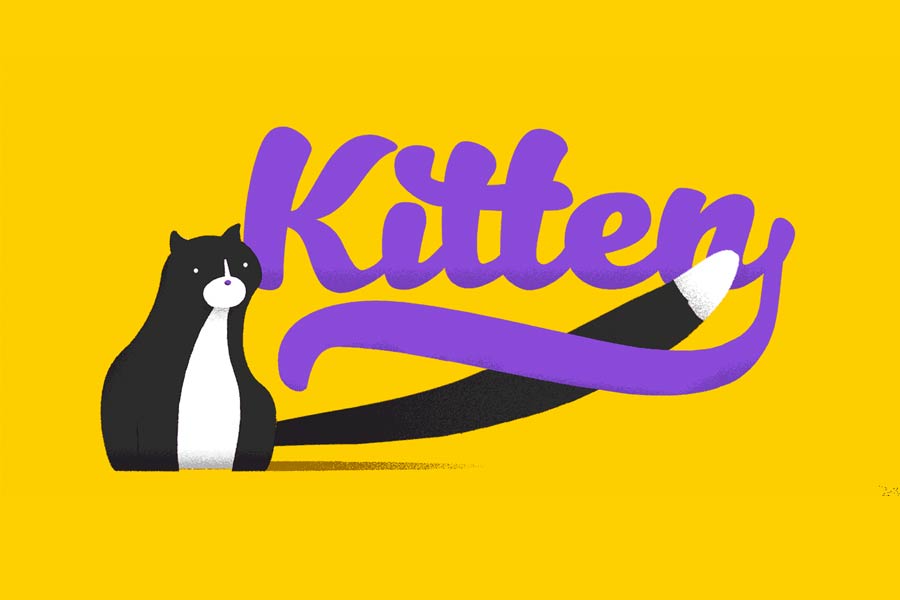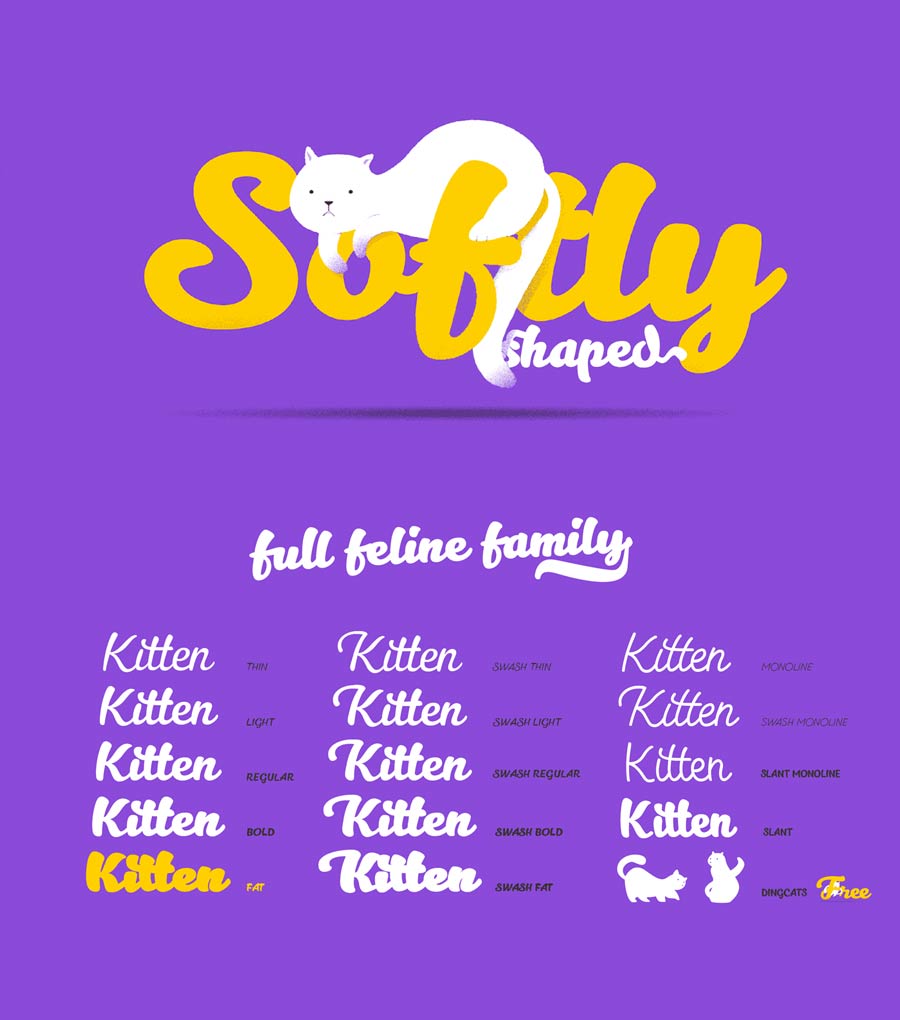
Kitten is a multi weight script family with a signpainter aestethic and a wide range of variants, alternates and ligatures designed by Cosimo Lorenzo Pancini, with cat dingbats designed by Isabella Ahmadzadeh. It is curvy and has wide range of styles and weights, making it a great font for logo designs, and also for displays.
Kitten font family makes full use of the Open Type ligatures to avoid letter clashes in uppercase and provide alternates and a wide array of ligature characters for a more handmade, natural look. You can download this font and use it for free, but with attribution.